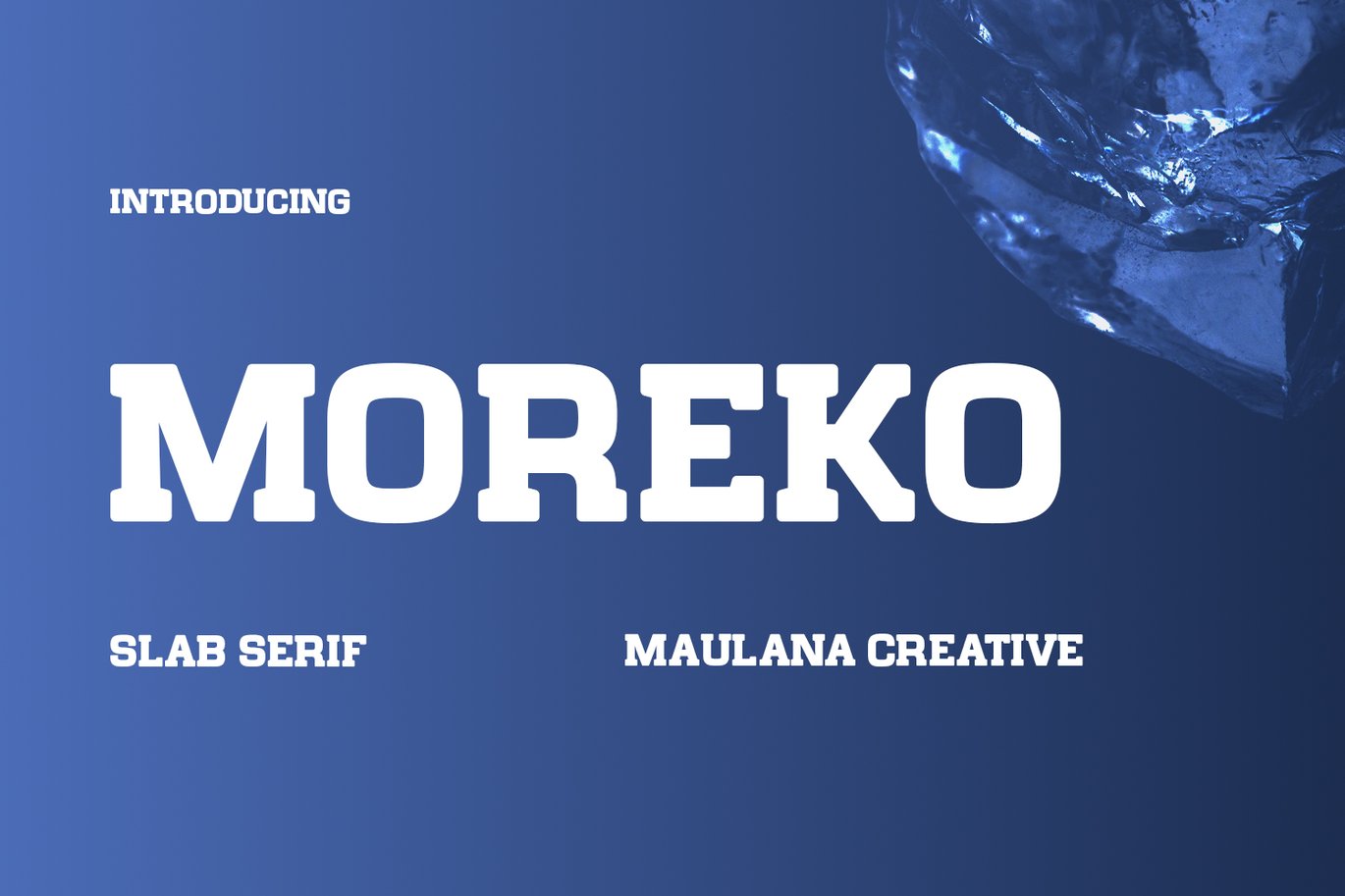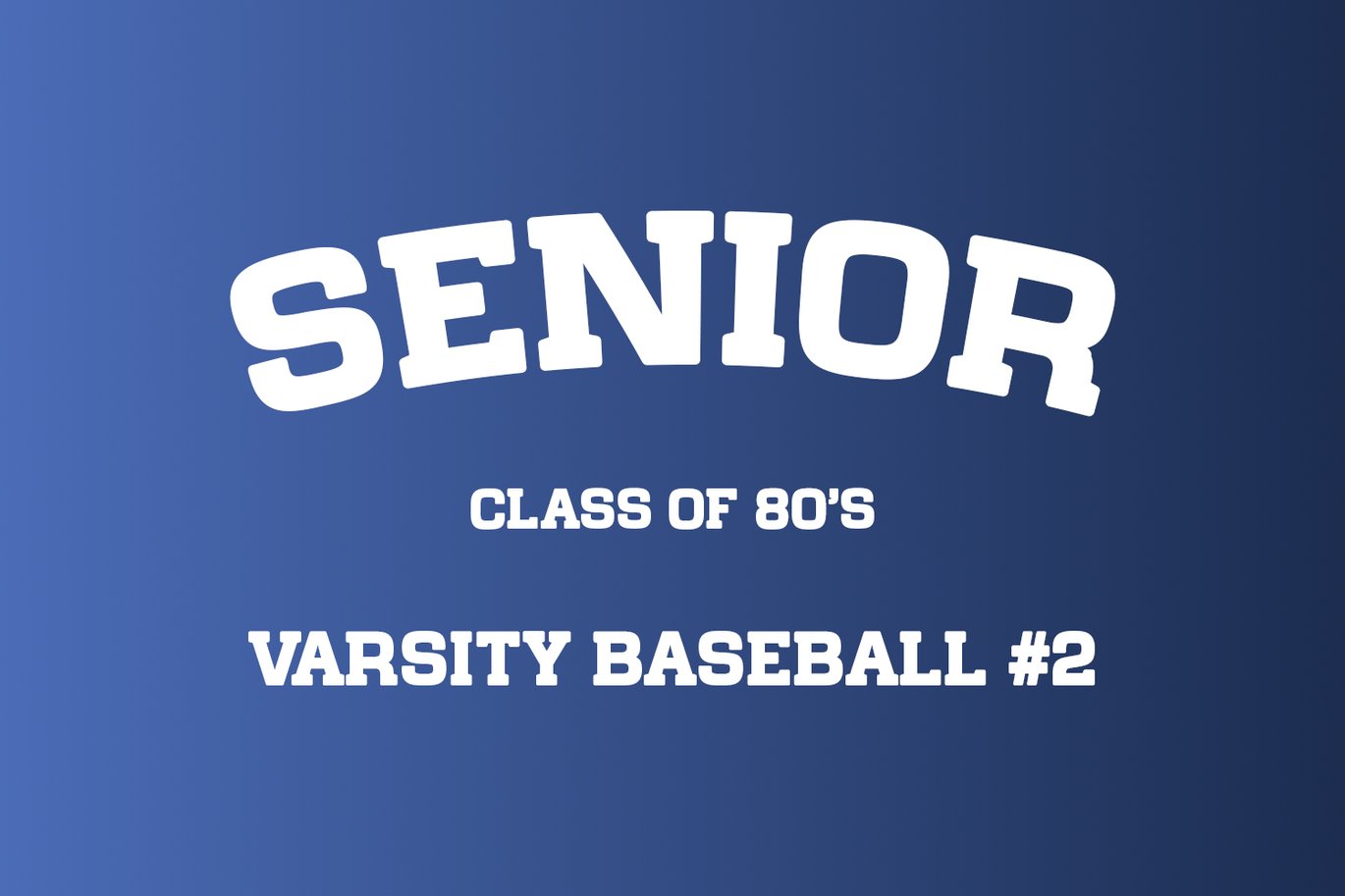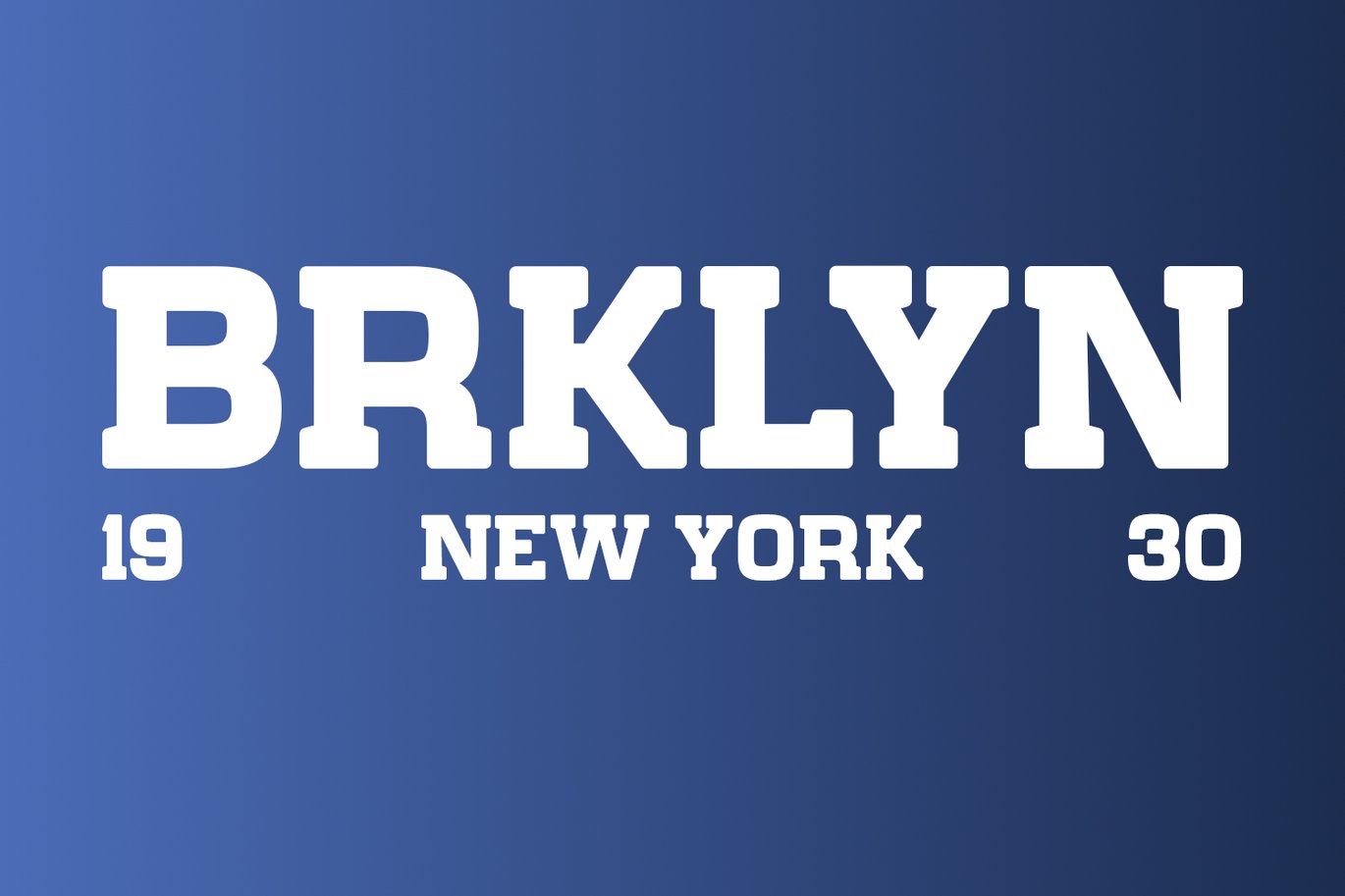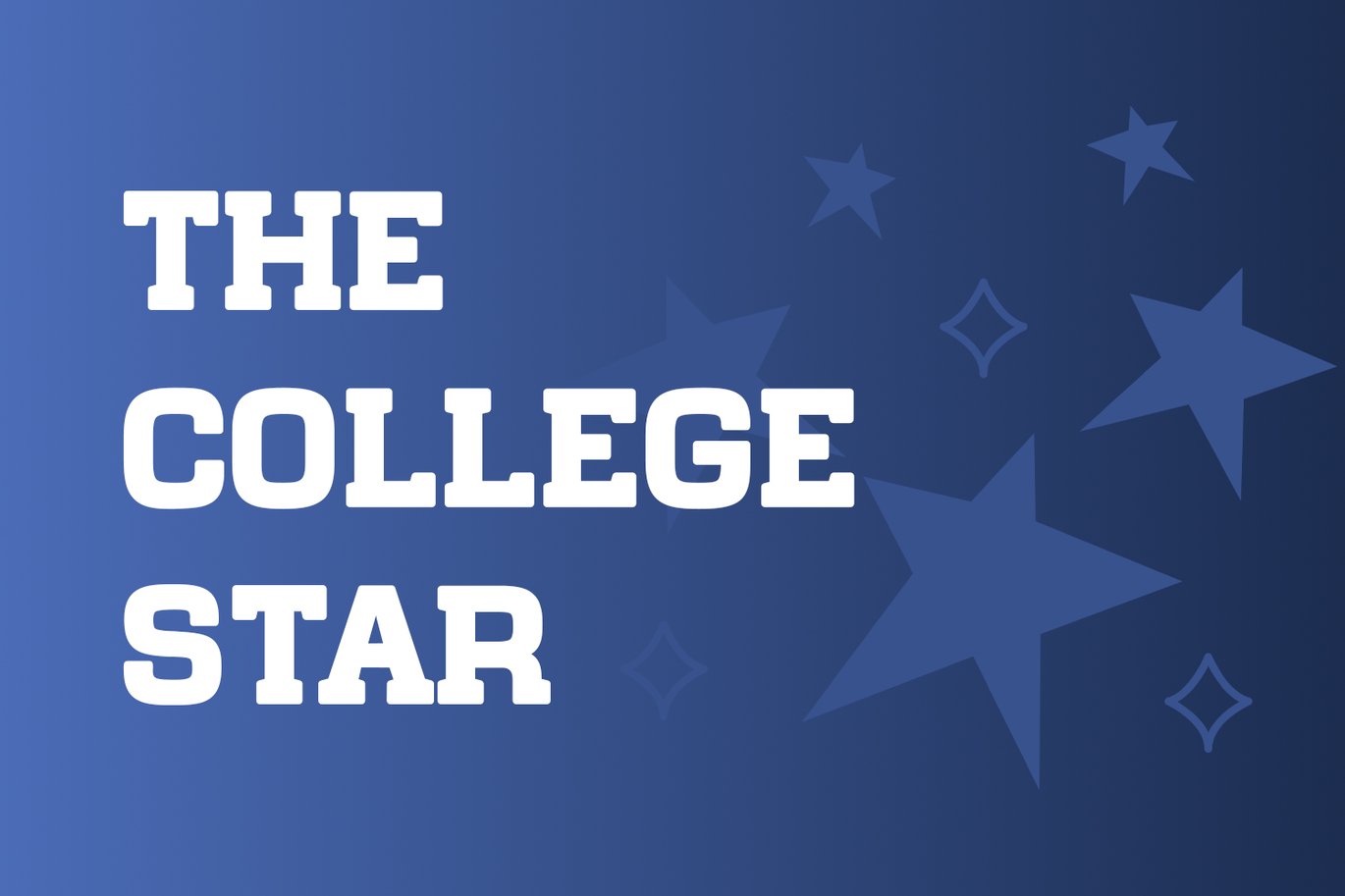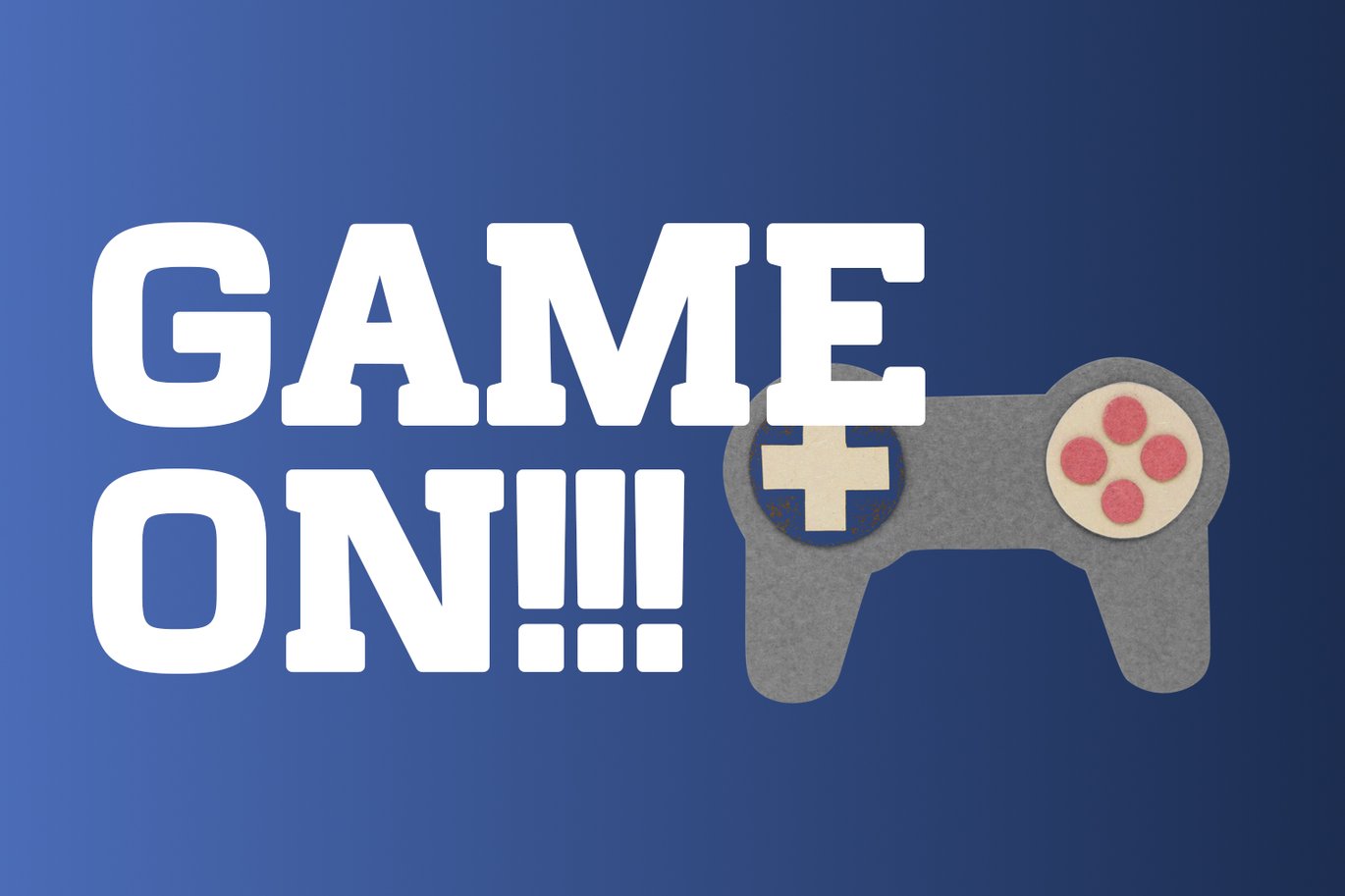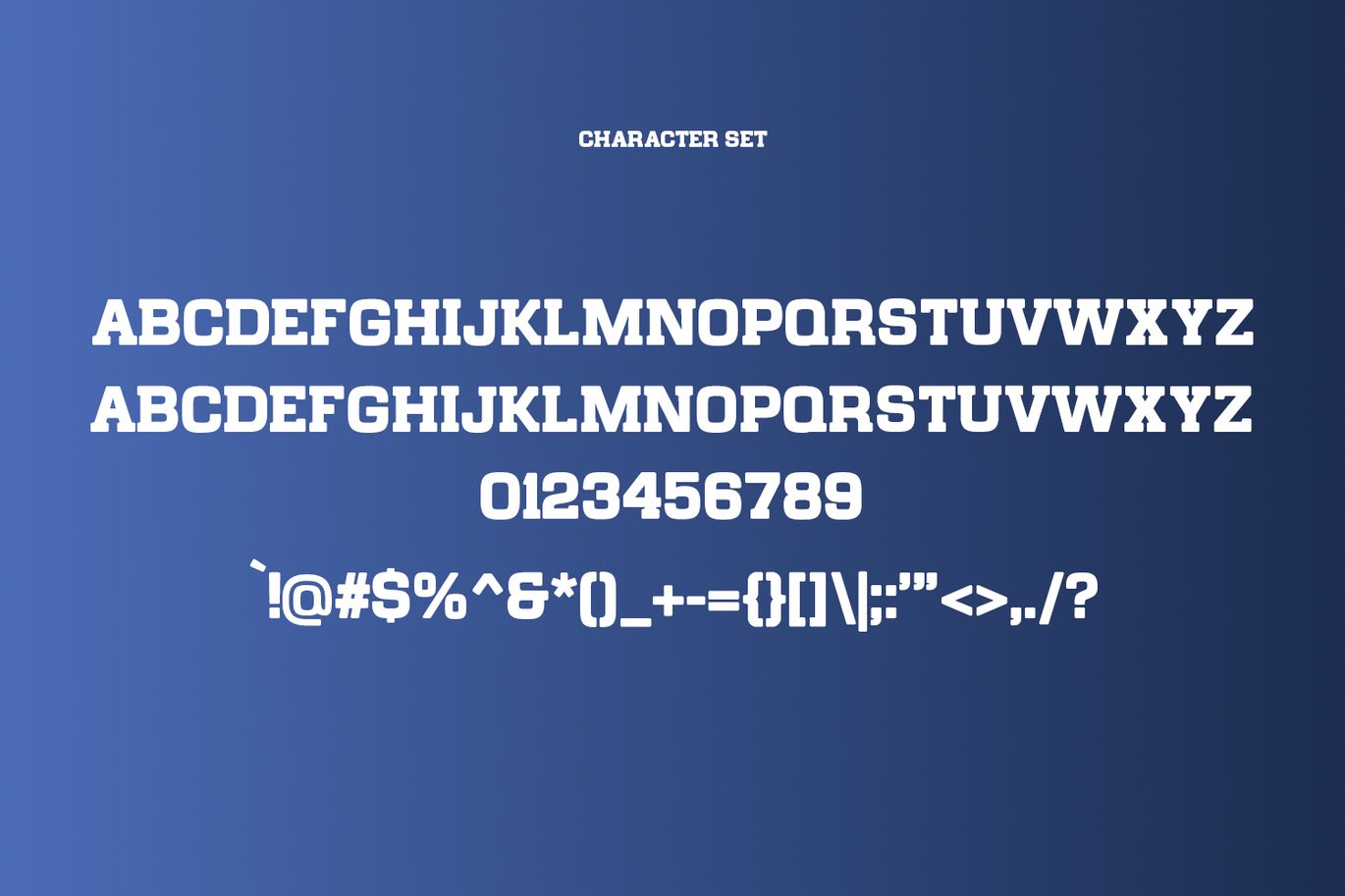
Moreko Slab Serif Font
Moreko is a retros slab serif all caps display font. Bold stroke, fun character with a bit of ligatures and alternates. To give you an extra creative work. Moreko font support multilingual more than 100+ language. This font is good for logo design, Social media, Movie Titles, Books Titles, a short text even a long text letter and good for your secondary text font with script or serif. Make a stunning work with Moreko font.